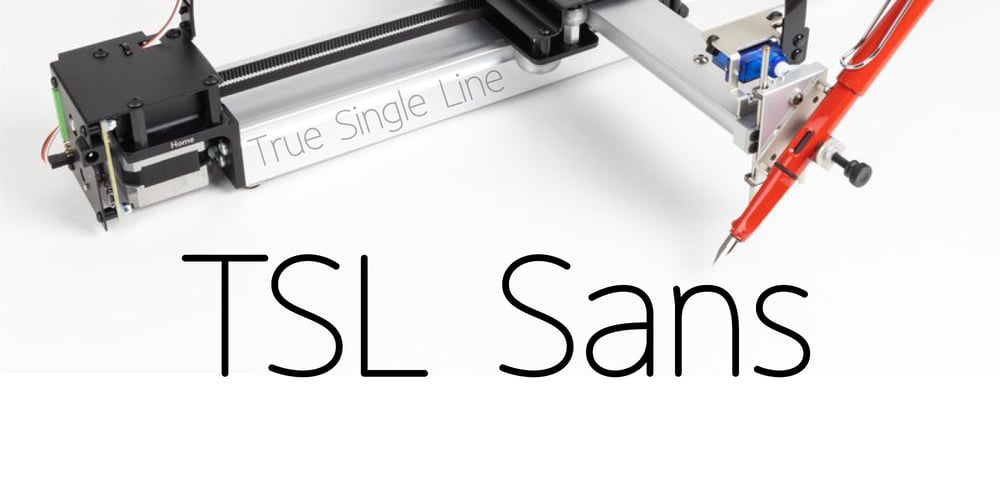
TSL Sans
TSL Sans font
TSL Sans Font Family was designed by Tanveer Qureshi and published by TanveerType. TSL Sans contains 1 styles and family package options. TSL Sans is a thin outline font and it is True Single line font for Adobe Suit 2019 plus applications when it converted into outlined. There are many languages included.